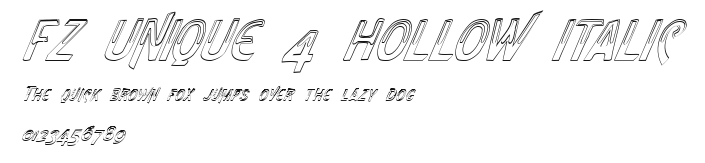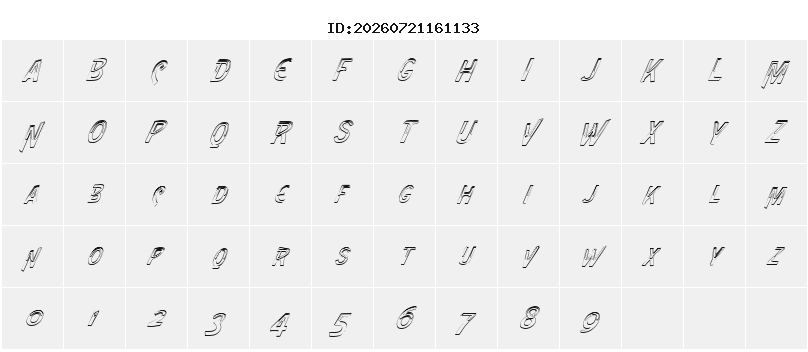
FZ UNIQUE 4 HOLLOW ITALIC Preview
• Font Name: FZ UNIQUE 4 HOLLOW ITALIC
• Full Font Name: FZ UNIQUE 4 HOLLOW ITALIC
About FZ UNIQUE 4 HOLLOW ITALIC.ttf
FZ UNIQUE 4 HOLLOW ITALIC.ttf is a modern, elegant sans-serif font designed for ultimate readability and visual harmony. Perfect for branding, headlines, web design, and print materials.